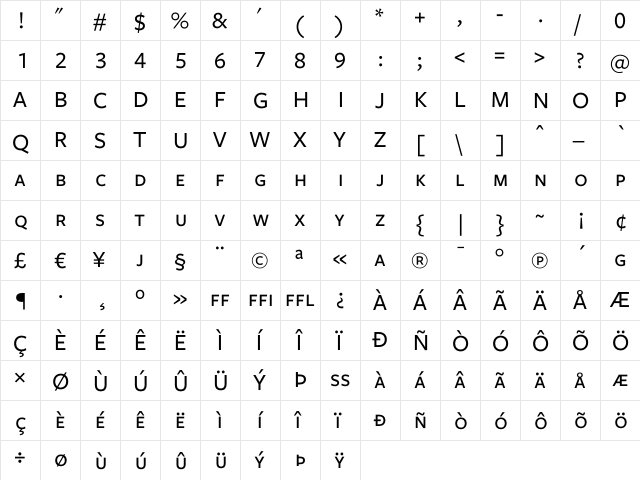
Freight Sans Medium SC
| Foundry | Joshua Darden & Phil's Fonts, Inc |
| Designer | Joshua Darden |
Design Context for Freight Typeface
Freight is a composed and adaptable typeface that performs quietly and consistently across a wide range of design contexts.